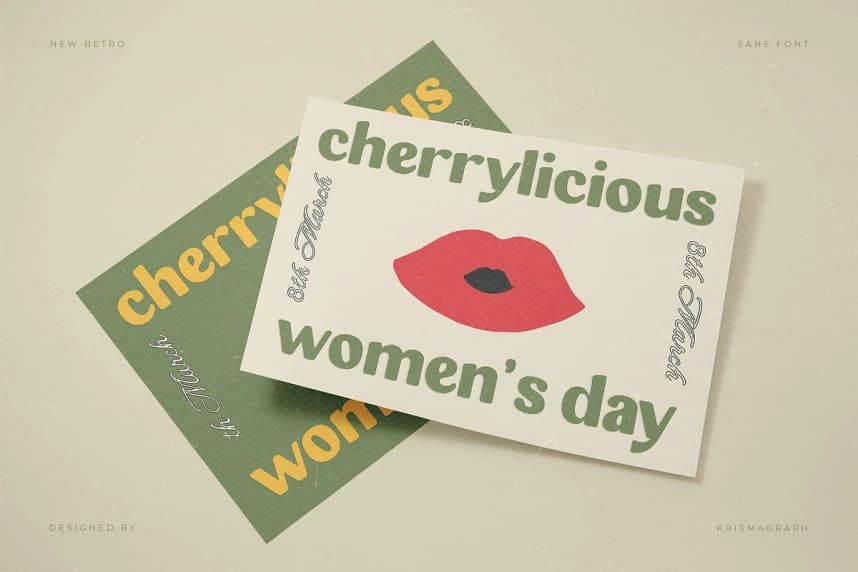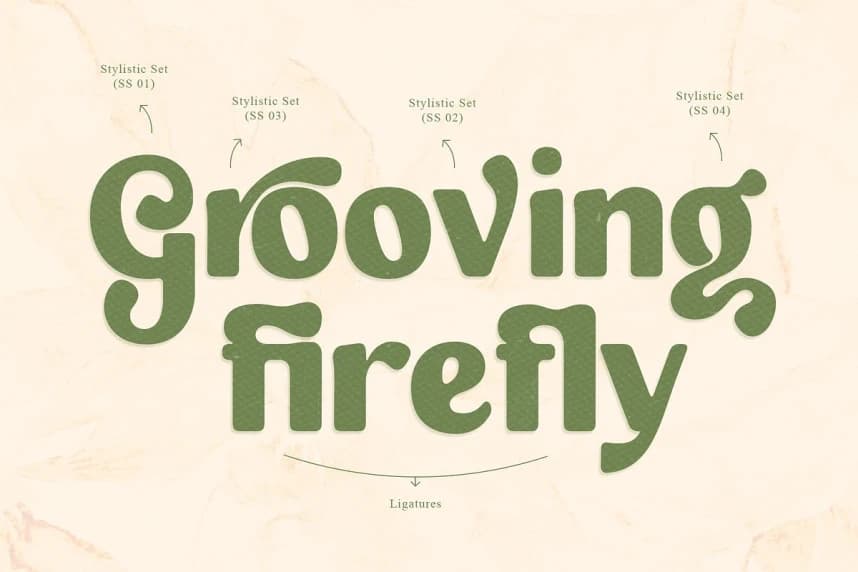
Bisque Veloute Font
Bisque Velouté Font is a bold, joyful retro sans typeface that channels the groovy spirit of the 1960s and 70s with a distinctly modern sensibility. Its thick, fluid letterforms — complete with swirling terminals and bubbly curves — create an unmistakably warm